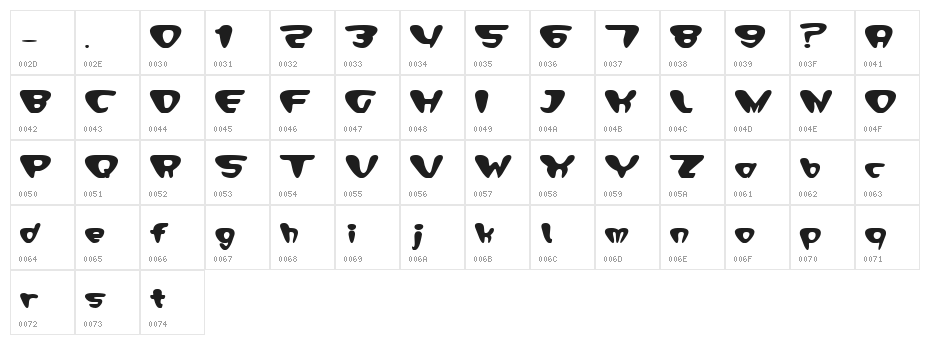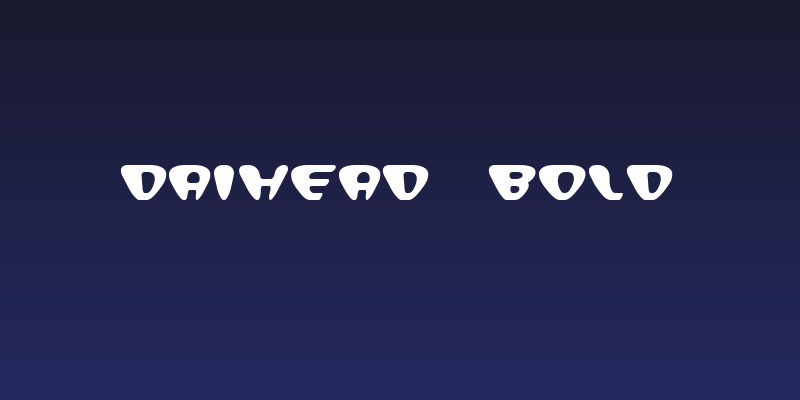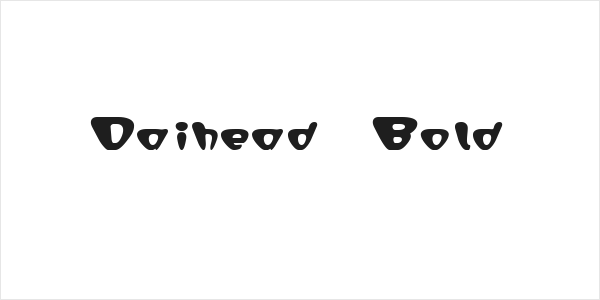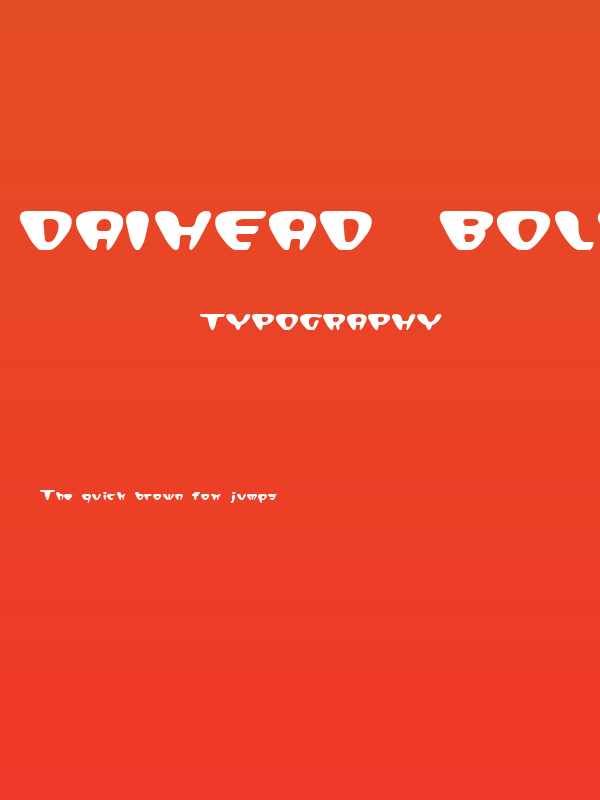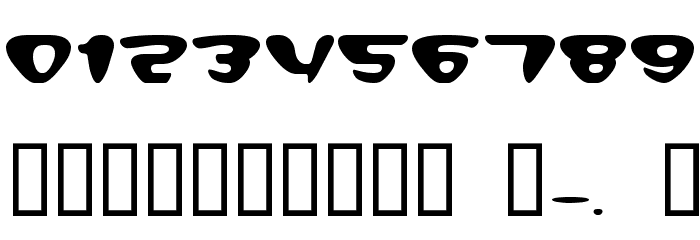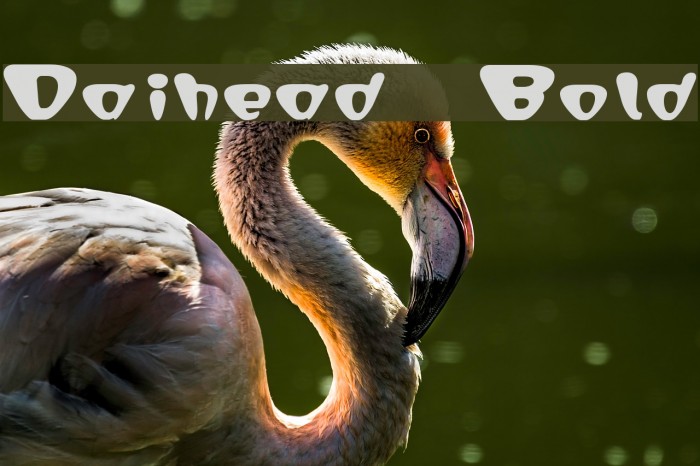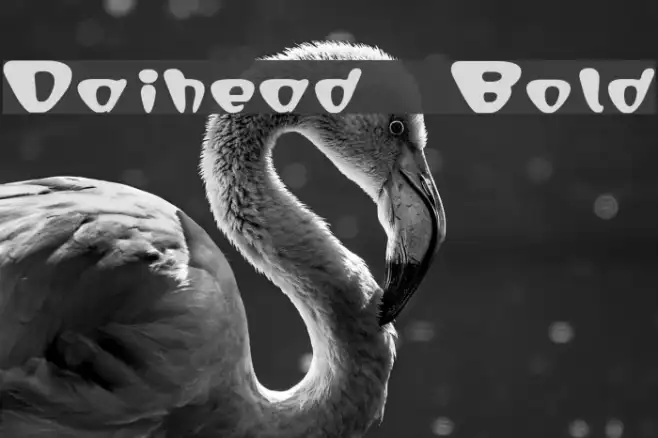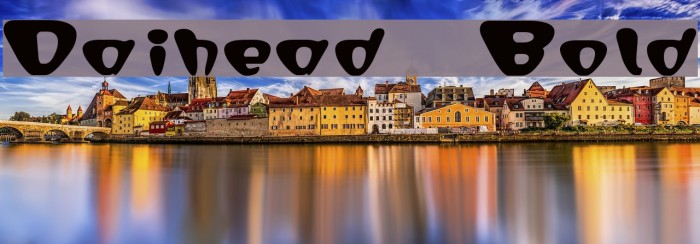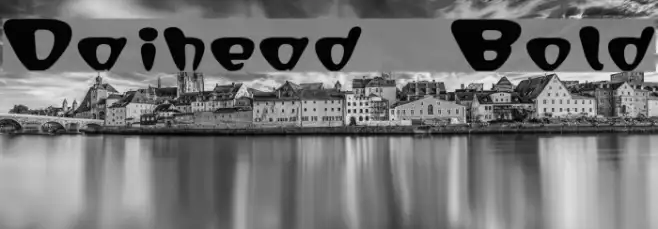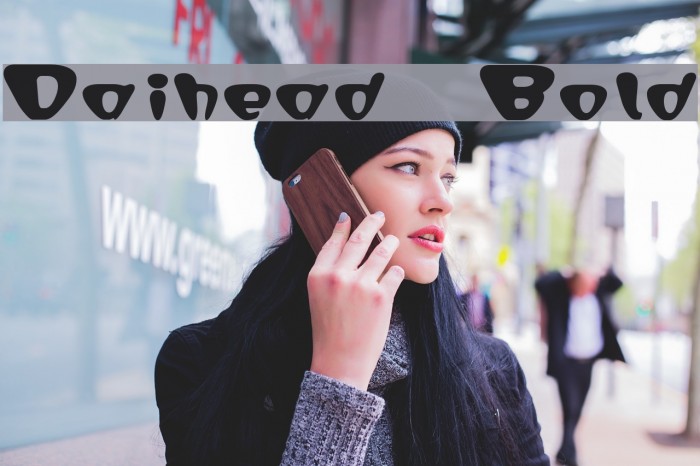
Daihead Bold Font
Daihead Bold Description
This font features a bold and dynamic style with a playful and slightly retro aesthetic. The characters are rounded with a unique, almost cartoonish flair, making them stand out with a strong visual presence. The uppercase and lowercase letters maintain a consistent style, with exaggerated curves and a sense of movement. The numbers follow the same design principles, ensuring uniformity across all characters. The special characters are creatively designed, adding to the font's overall whimsical and artistic appeal. This font is ideal for projects that require a bold statement and a touch of fun.
| Overall Style | Playful, Retro, Cartoonish |
| Proposed Projects | Ideal for children's books, playful branding, posters, and creative advertising. |